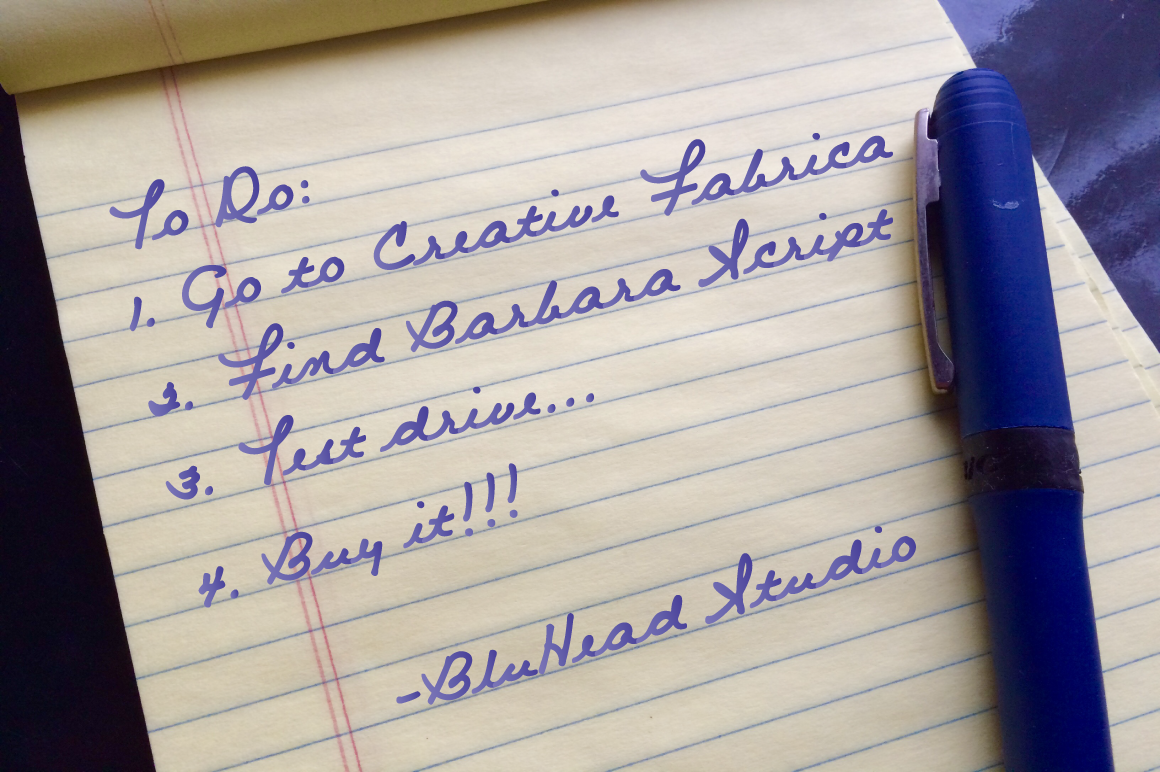
Discover the Elegance of Barbara Script Font: A Handwritten Typeface with a Personal Touch
For designers and crafters seeking a font that embodies the warmth and uniqueness of handwritten text, Barbara Script Font stands out as an exceptional choice. This connecting typeface, inspired by the handwriting of a friend, brings a personal and natural touch to any project. With its advanced features, including OpenType ligature and contextual swash, Barbara Script Font automatically recreates the look and feel of natural variations in handwriting, making it a versatile and elegant addition to your typography arsenal.
The Story Behind Barbara Script Font
Barbara Script Font is more than just a typeface; it’s a piece of personal history captured in digital form. Based on the handwriting of a friend, this font carries the essence of human touch and individuality. Its creation reflects a meticulous process aimed at preserving the fluidity and expressiveness of handwriting in a digital format. This origin story adds a layer of uniqueness to the font, making it a valuable asset for projects that demand a personal or bespoke feel.
Key Features of Barbara Script Font
• Connecting Typeface: Barbara Script Font is designed as a connecting script, meaning that the letters flow together seamlessly. This feature mimics natural handwriting, creating a cohesive and harmonious look in text.
• OpenType Ligature and Contextual Swash Features: One of the standout features of Barbara Script Font is its use of OpenType ligature and contextual swash. These features allow the font to intelligently substitute 59 ligatures and 93 alternates. This results in a highly natural appearance, as if the text was written by hand.
• Automatic Recreation of Handwriting Variations: The font’s ability to automatically recreate the look and feel of natural variations in handwriting sets it apart. This means that even in digital form, the text retains a dynamic and organic feel, reminiscent of actual handwriting.
Applications of Barbara Script Font
Barbara Script Font’s versatility makes it suitable for a wide range of applications. Here are some areas where this font truly shines:
• Wedding and Event Stationery: The elegant and personal nature of Barbara Script Font makes it perfect for wedding invitations, save-the-date cards, and other event stationery.
• Branding and Packaging: For brands looking to convey a sense of warmth and individuality, Barbara Script Font offers a unique solution. Its handwritten feel can add a personal touch to product packaging, logos, and marketing materials.
• Digital and Print Media: Whether you’re working on a blog, website, magazine, or any printed material, Barbara Script Font can add a touch of elegance and personality to your content.
• DIY Projects and Crafts: Crafters and DIY enthusiasts will love using Barbara Script Font for their projects, such as handmade cards, journals, and decorative items. The font’s personal touch can elevate these projects, making them more special and unique.
Tips for Using Barbara Script Font Effectively
To make the most of Barbara Script Font, consider the following tips:
• Pair with Complementary Fonts: When using Barbara Script Font alongside other typefaces, choose fonts that complement its elegant and handwritten feel. A combination of serif and script fonts often works well.
• Adjust Ligatures and Swashes: Experiment with the font’s ligatures and swashes to achieve the desired level of variation and naturalness in your text.
• Consider the Color Scheme: The warmth of Barbara Script Font can be further enhanced by choosing a suitable color scheme. Earth tones, pastels, and rich jewel tones can complement the font’s elegant feel.
Author BluHead Studio
Barbara Script Font offers a unique blend of elegance, personality, and versatility, making it an excellent choice for designers and crafters alike. Its ability to mimic the natural variations of handwriting, combined with its advanced typographic features, sets it apart in the world of digital typefaces. Whether you’re working on a professional project or a personal craft, Barbara Script Font can add a touch of warmth and individuality that makes your work stand out.
Embrace the personal touch of Barbara Script Font in your next project, and discover how this beautiful, handwritten typeface can bring your ideas to life with elegance and flair.